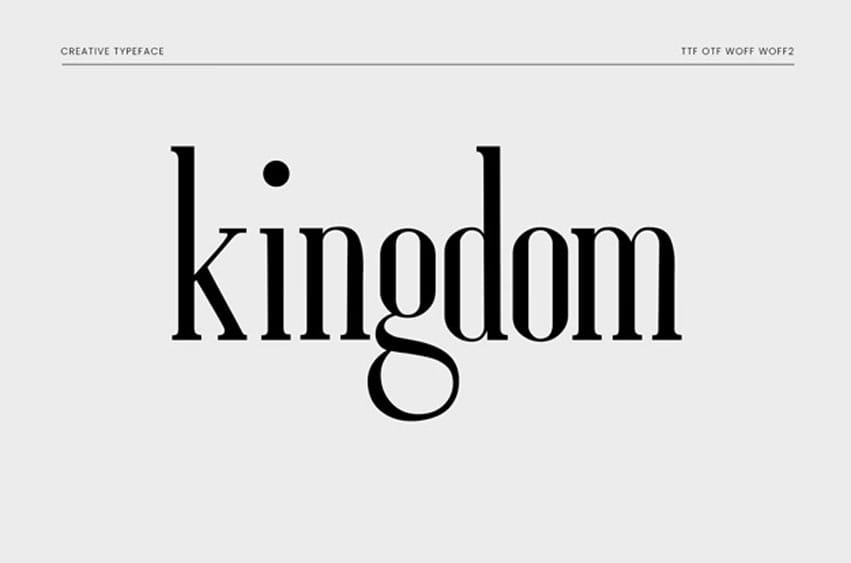
Kingdom Typeface Font is a unique and modern serif font, perfect for headlines, big text, branding, logotypes, and display usage. This font can be the perfect choice for creating outstanding logos, promotional content, and marketing graphics that can bring uniqueness and freshness at its level best!